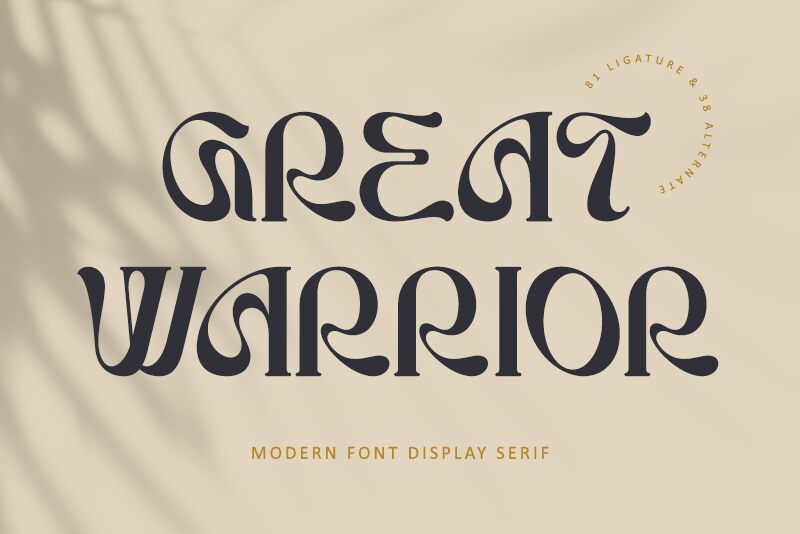
Great Warrior by Letterara stands out as a modern serif display font that masterfully blends the elegance of classic typography with a groovy, vintage flair.
Perfectly tailored for creators seeking to infuse their work with a sense of class and an edge of retro sophistication, this typeface is not just a font; it's a bold statement in design. Its versatility shines across various mediums – from the personal touch on wedding invitations to the professional appeal in branding and advertising. With the added convenience of PUA encoding, every glyph and swash is at your fingertips, ensuring your creative expression is limitless.
Embrace Great Warrior for your project and let its unique character elevate your designs to new heights of style and distinction.